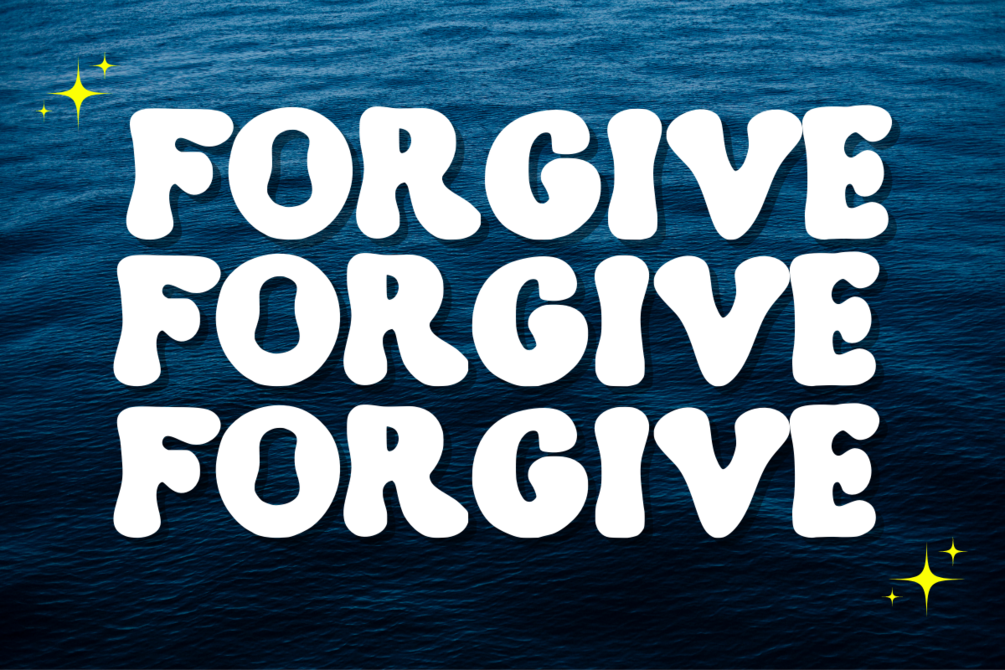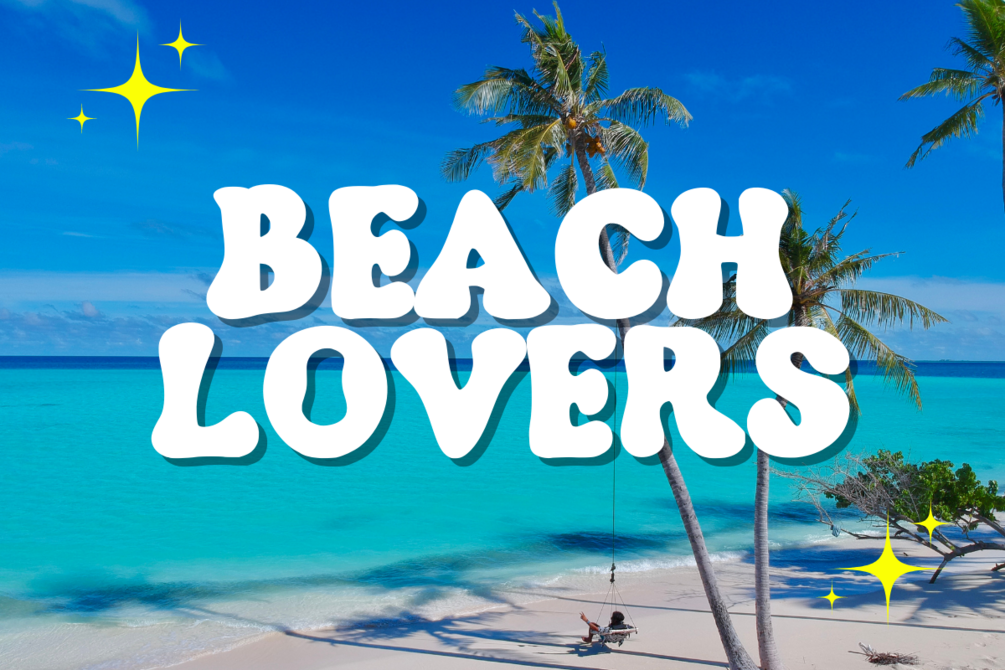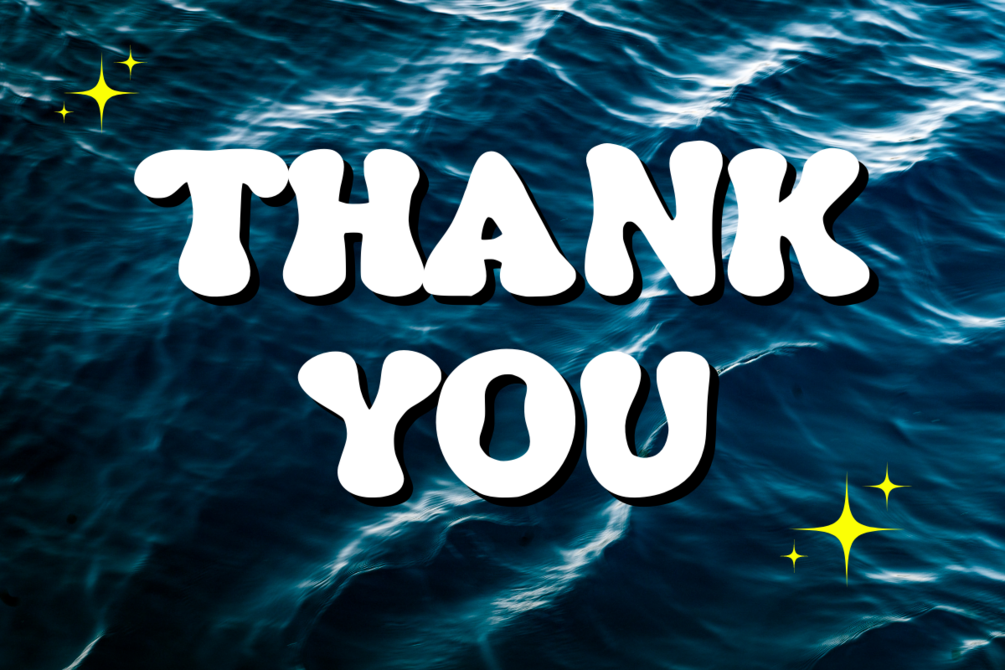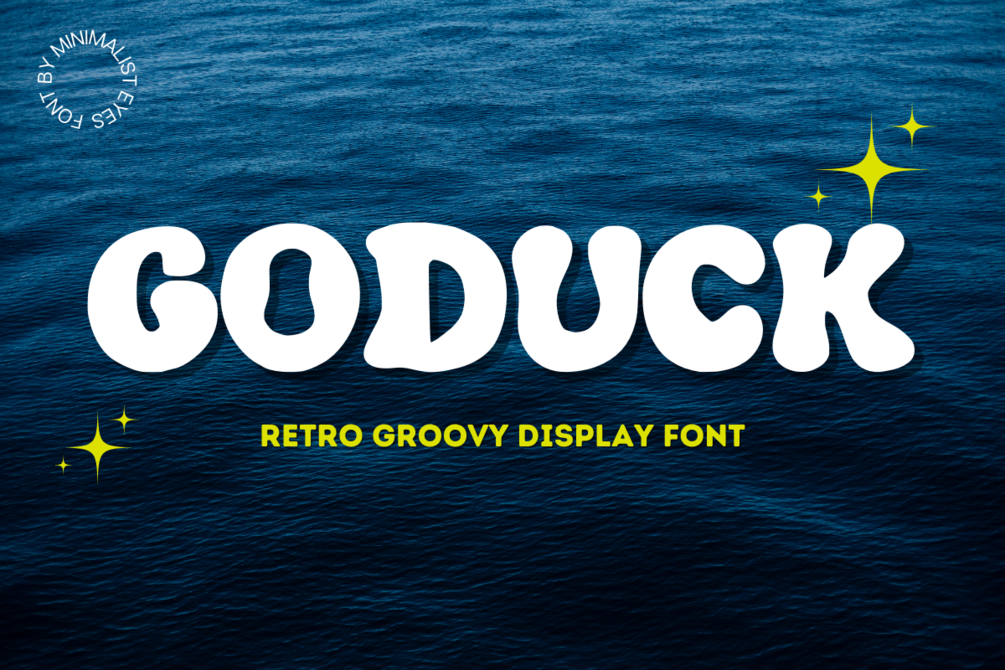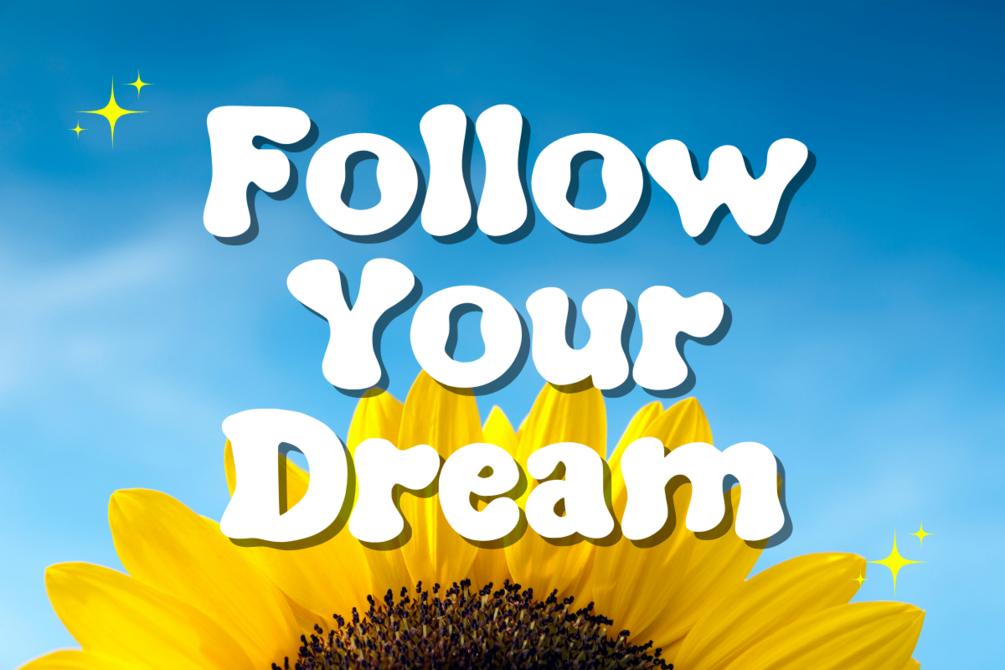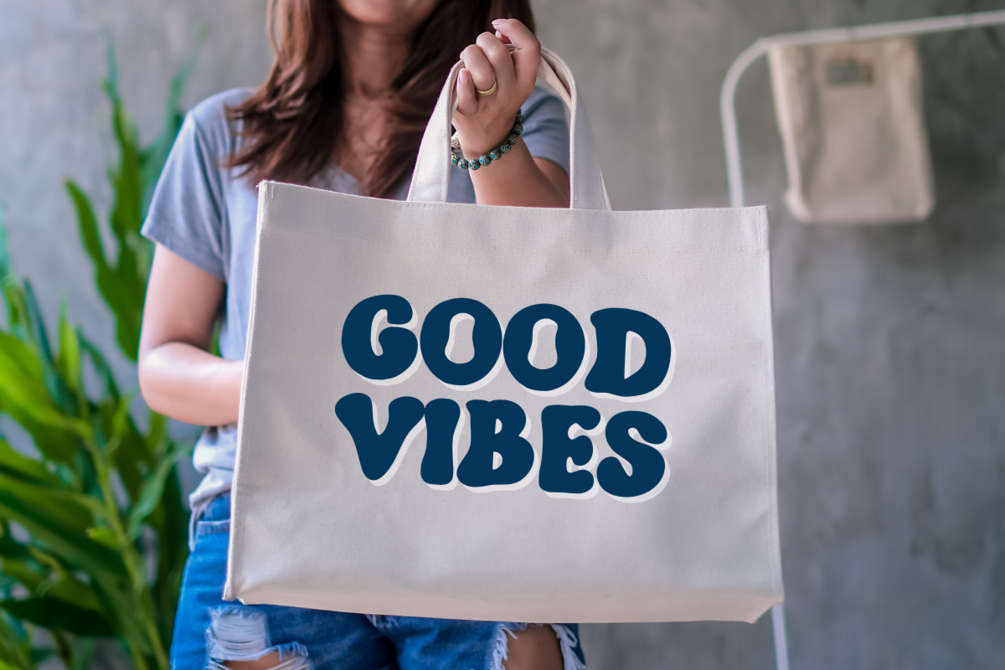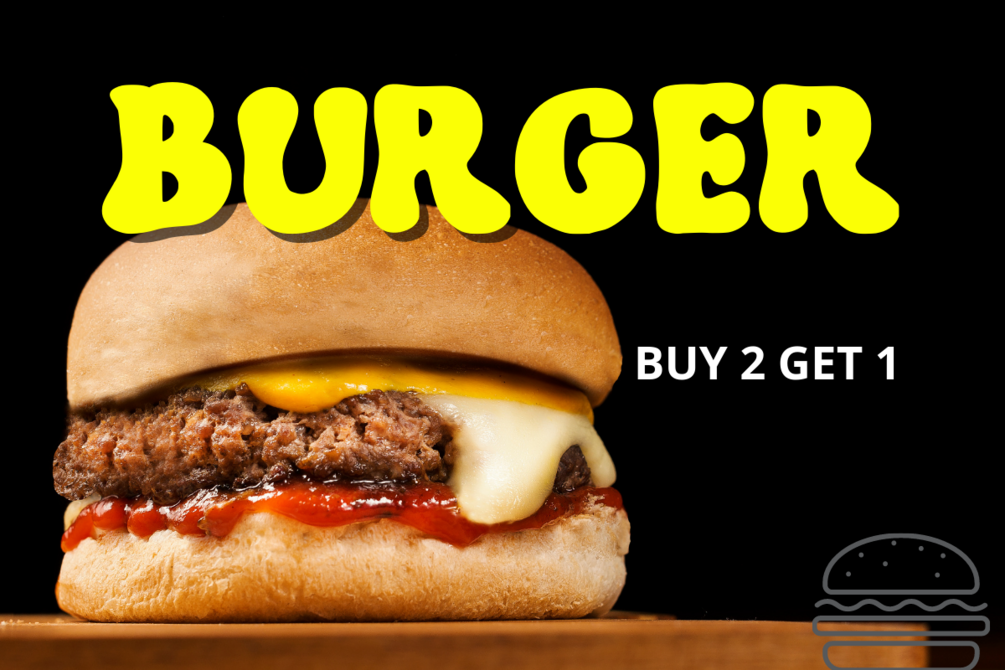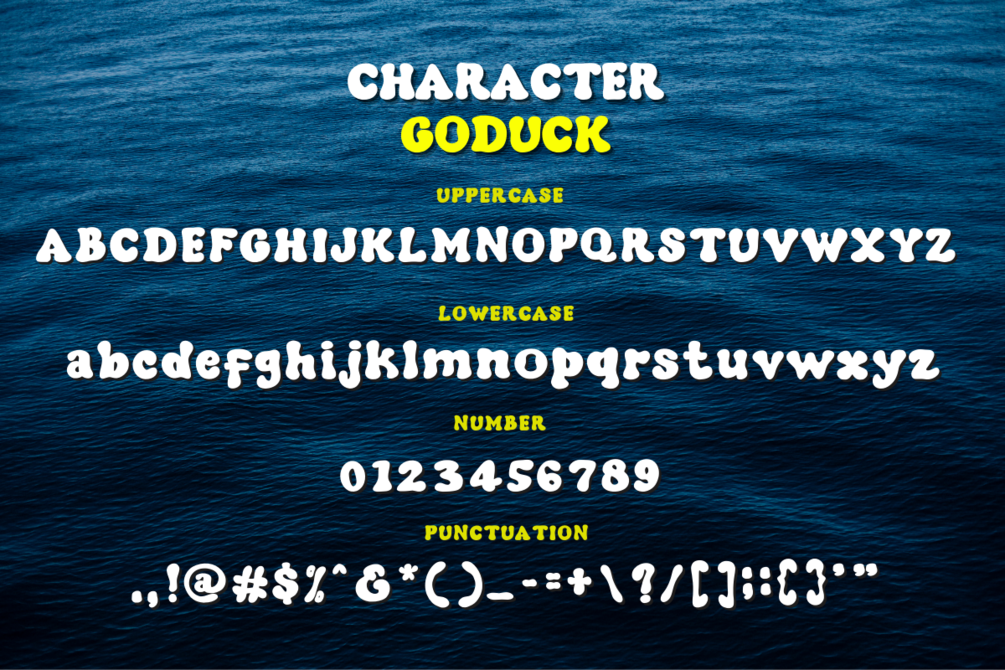
Goduck - Retro Groovy Display Font
Goduck is a versatile, stylish, and fun retro display font that’s perfect for a wide spectrum of applications such as greeting cards, news headlines, and more! Add it to any of your creative projects, and it will give off a romantic and lovely look.. Get inspired by its unique and beautiful style and add it to your favorite designs!